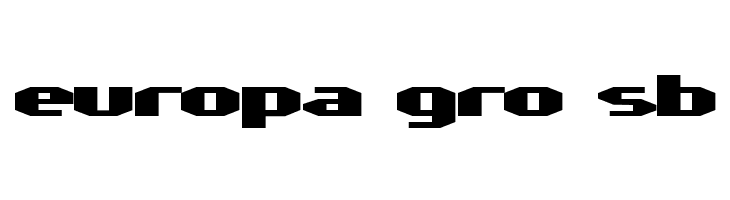
A geometric, grid-based font with a modern and experimental style.
A bold, expanded font with a futuristic, geometric design.
A bold, geometric font with a modern, industrial feel.
A bold, futuristic font with geometric shapes and sharp angles.
( Fonts by Levi Halmos )
A bold, geometric font with a futuristic and modern design.